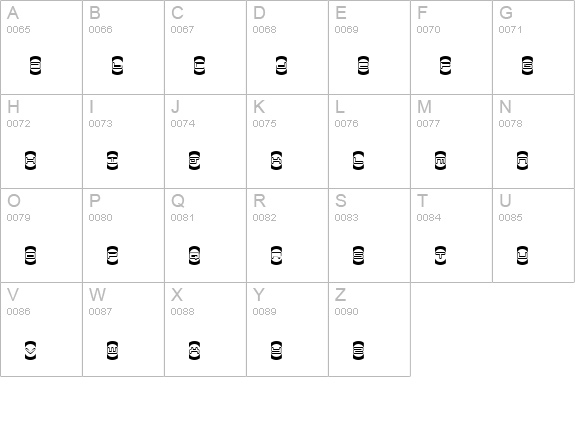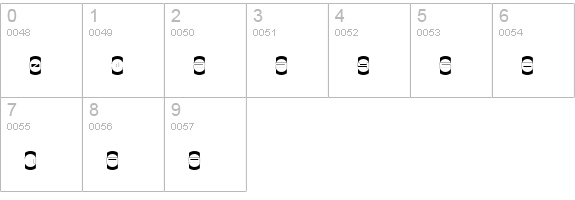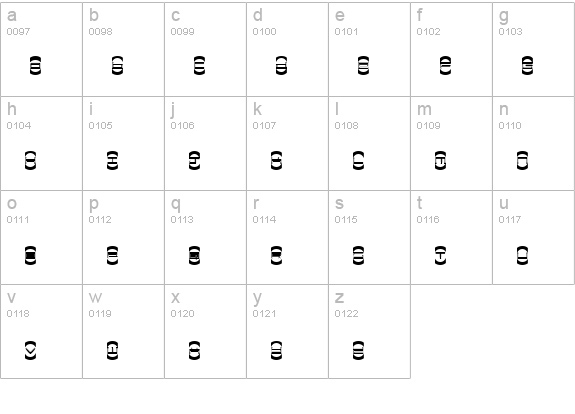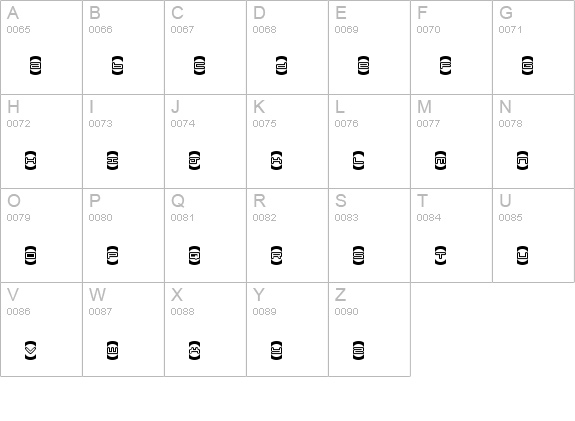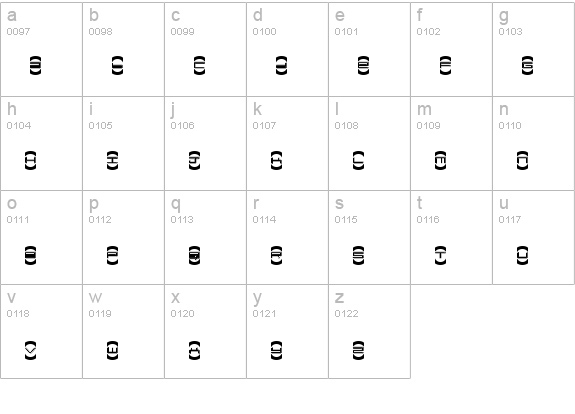
Mister Dope Font Details
Introducing the stylish and versatile Mister Dope font, the perfect choice for adding a touch of sophistication and modernity to your design projects. This unique font features sleek lines and a contemporary aesthetic that will make your text stand out. Whether you're creating logos, branding materials, or social media graphics, Mister Dope is sure to impress. What's even better is that Mister Dope font is available for free download at FontsMarket.com. Yes, you read that right - this high-quality font can be yours at no cost! Simply head over to FontsMarket.com to grab your copy and start using Mister Dope in your designs today. Don't miss out on this fantastic opportunity to enhance your creations with a font that exudes style and creativity.